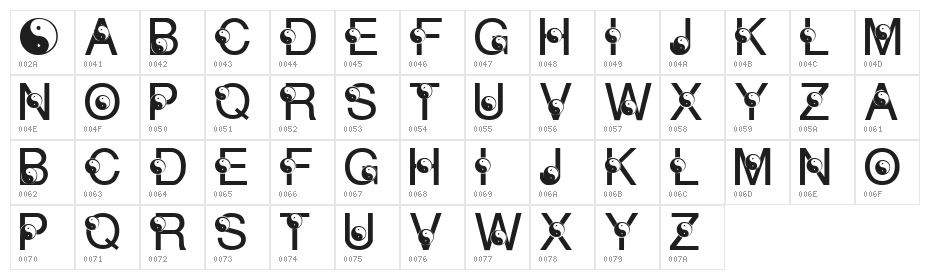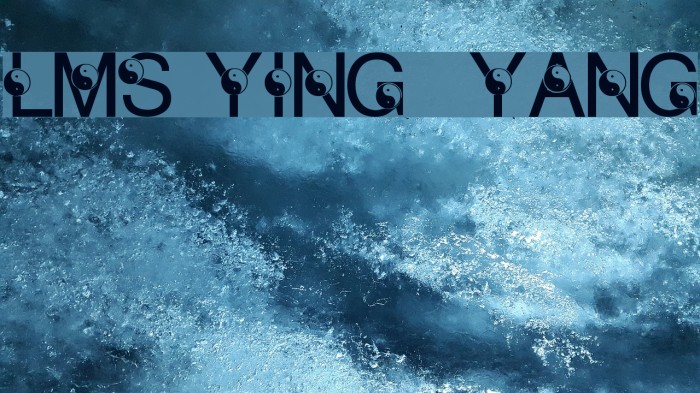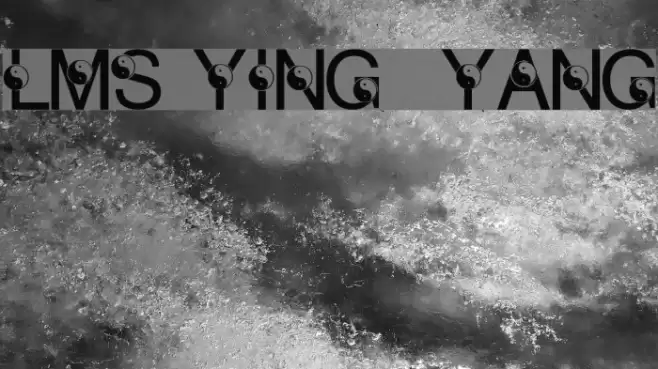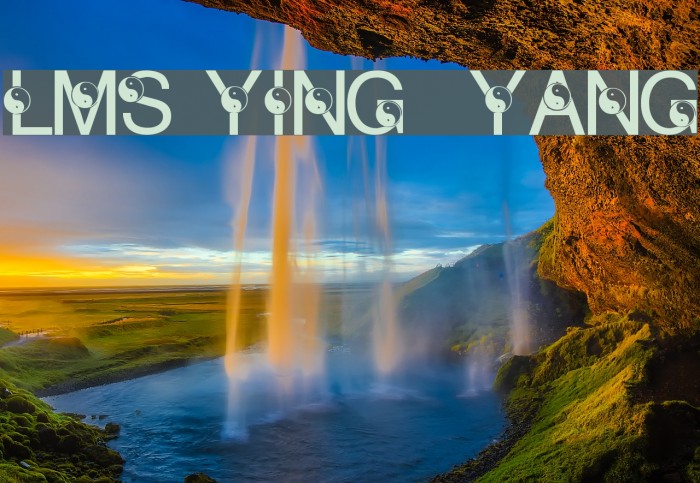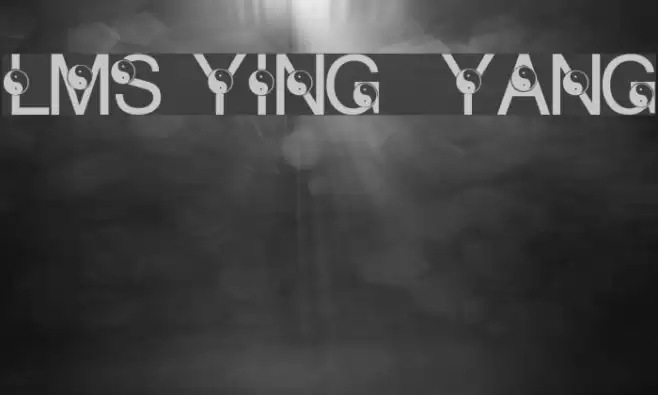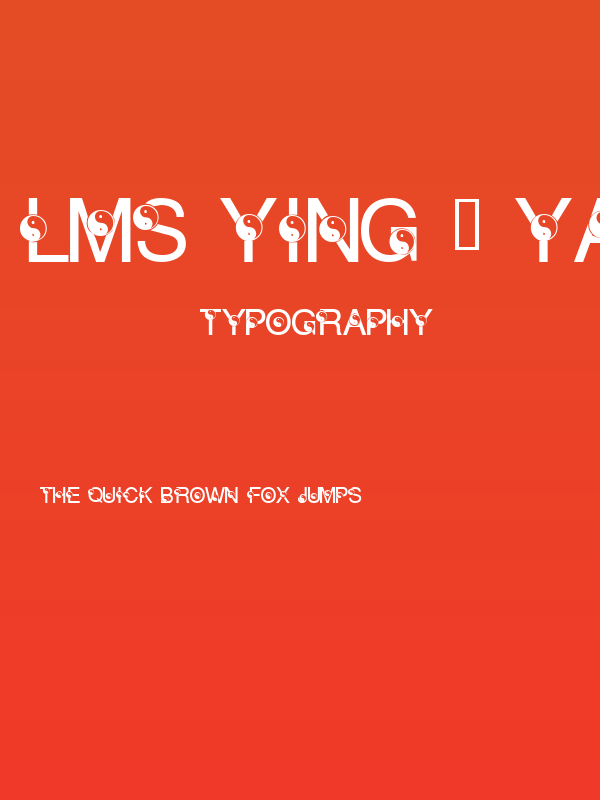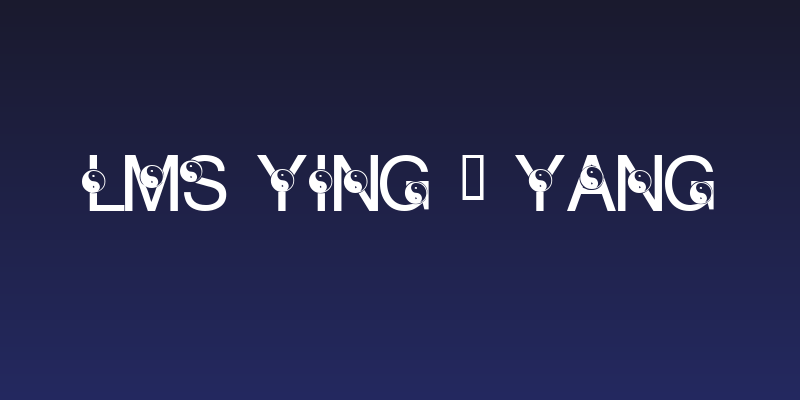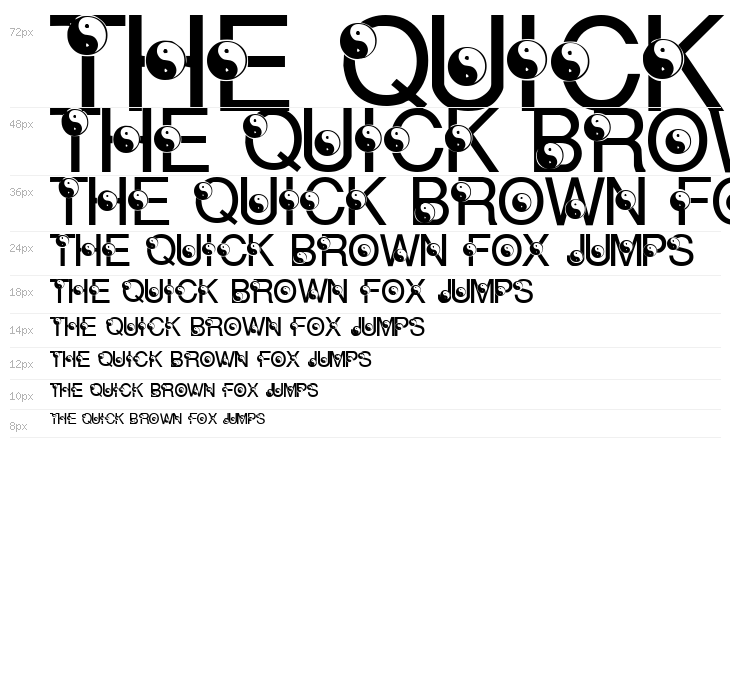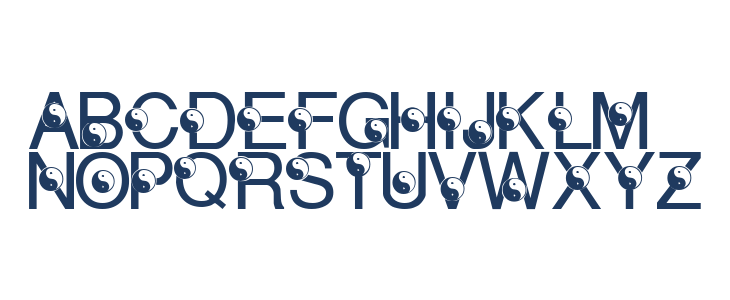
LMS Ying & Yang Font
LMS Ying & Yang Description
This font features a unique and playful design, incorporating the yin-yang symbol into each letter. The letters are bold and sans-serif, providing a modern and clean look. The yin-yang symbol is cleverly integrated, replacing the counters of the letters, which adds a decorative and thematic element. This design choice makes the font stand out and gives it a distinct personality, suitable for projects that aim to convey balance, harmony, or Eastern philosophical themes.
| Proposed Projects | Ideal for projects related to wellness, yoga studios, martial arts branding, or any design that seeks to incorporate themes of balance and harmony. |